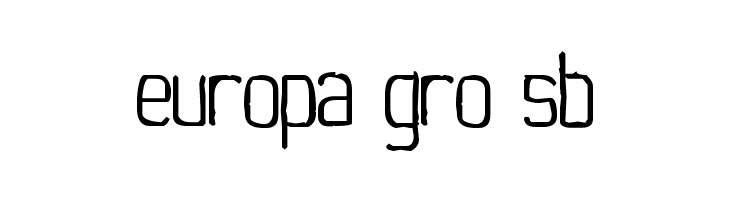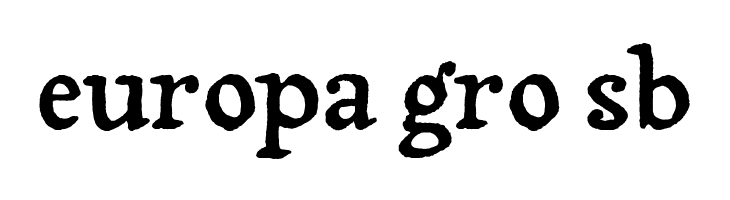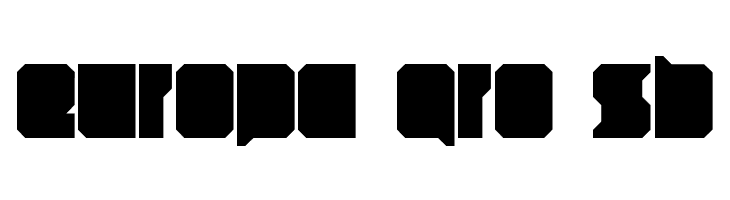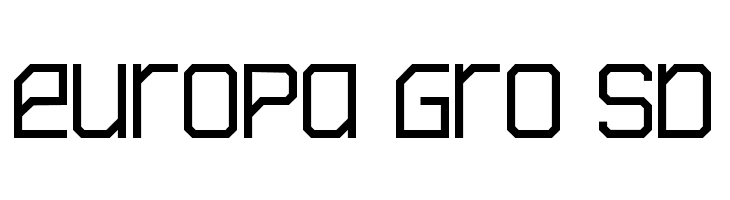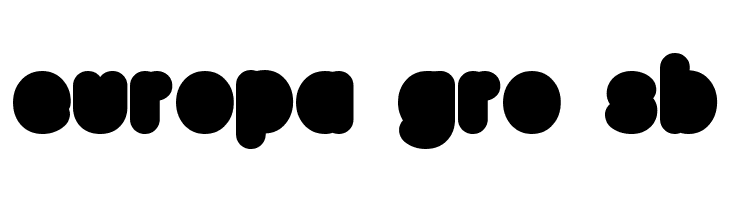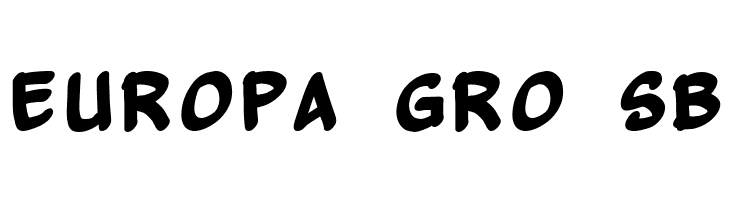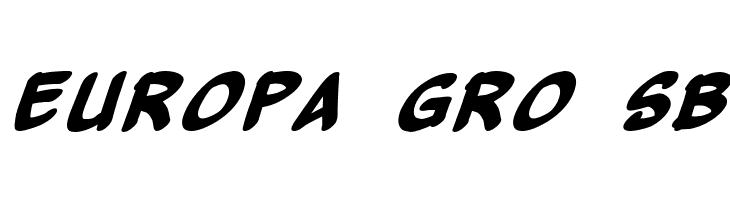
• xpdr_fat 00
A bold, playful font with rounded, bubble-like characters.
• xpdr_rules 00
A bold, geometric font with angular shapes and a modern, impactful design.
• xpdr_selur 00
A bold, geometric font with blocky, uniform letterforms and a modern, industrial feel.
• xpdr_splash 00
• xpdr_tech 00
A geometric, angular font with a futuristic and technical style.
• Yachting Type
A hand-drawn, playful font with tall, narrow characters and a casual aesthetic.
• Yanone Tagesschrift
• Yet Another Unbranded Banana
A whimsical and decorative serif font with a vintage-modern blend.
• Yew Basturd Bold
A bold, playful handwritten font with thick, rounded strokes.
• Yew Basturd BoldItalic
A bold, italic font with dynamic and energetic strokes.